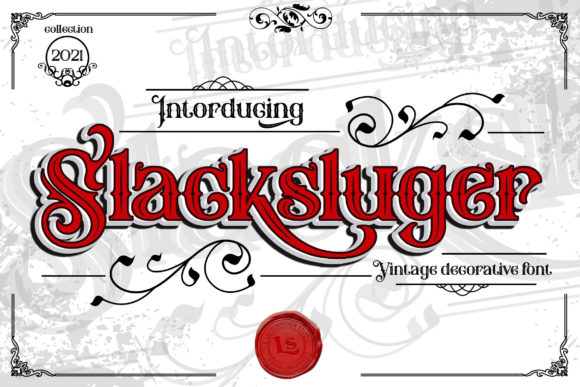
Introducing Slacksluger, the ultimate font for all your Powerpoint text needs! Created by the brilliant minds at Gumacreative, this blackletter font is highly detailed and incredibly dramatic, making it the perfect choice for those who want to add a spooky and aggressive edge to their designs.
Whether you're creating a presentation for work or designing something for personal use, Slacksluger is the best font to elevate your text and grab your audience's attention. With its intricate details and bold strokes, this font demands to be noticed and will leave a lasting impression on anyone who sees it.
But Slacksluger isn't just for those who want to make a statement. It's also versatile enough to be used in a variety of settings, from Halloween-themed party invitations to gothic-inspired websites. No matter what your project entails, Slacksluger will help you achieve your desired aesthetic.